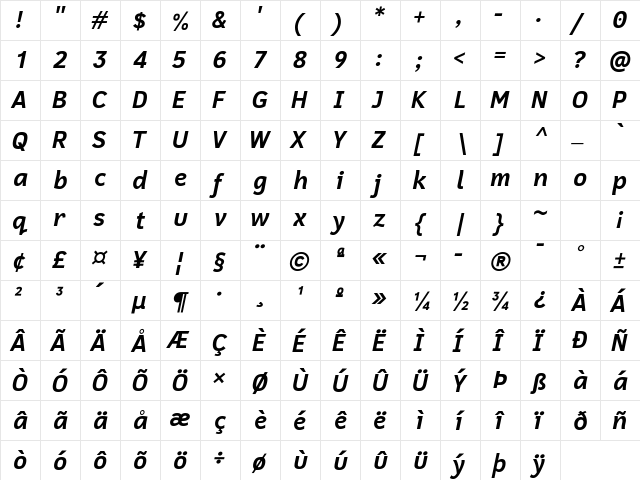
Cadman Bold Italic
| Designer | Paul James MIller |
Design Context for Cadman Typeface
Cadman is a composed and adaptable typeface that performs quietly and consistently across a wide range of design contexts. Its italic angle brings a sense of urgency and motion to the letterforms. The heavy weight commands attention and anchors typographic hierarchies.
Pro Tip: Use Cadman for emphasis, pull quotes, and subheadings where its slanted energy can add rhythm to the layout.